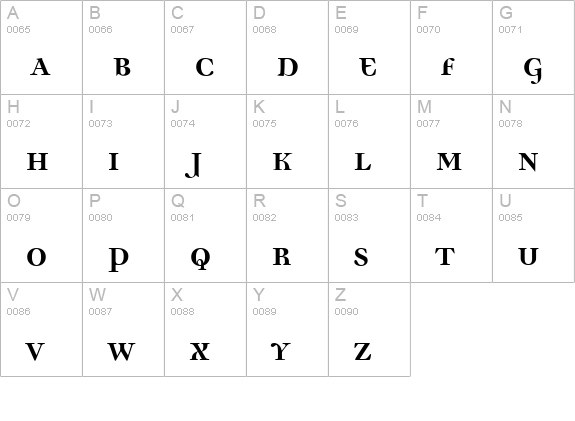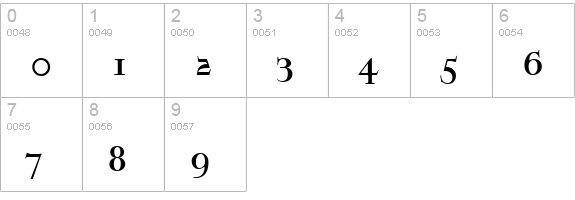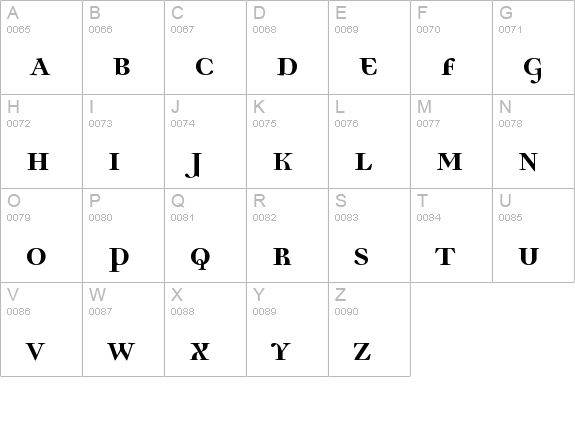
DemocraticaBoldOldstyle Bold is a strong, high-contrast variant in the DemocraticaBoldOldstyle typeface family \xE2\x80\x94 well suited to headlines, attention-grabbing titles, and strong calls-to-action.
DemocraticaBoldOldstyle Bold font is a striking and versatile typeface that exudes confidence and modernity. With its bold strokes and classic design elements, this font is perfect for making a statement in any project. Whether you're creating a headline for a magazine, designing a logo for a business, or crafting a poster for an event, DemocraticaBoldOldstyle Bold font will make your text stand out with its bold and authoritative presence. This font is a timeless choice that combines traditional elegance with contemporary flair, making it suitable for a wide range of design applications. Its strong and bold letterforms command attention and convey a sense of strength and professionalism. Whether you're using it for print or digital media, DemocraticaBoldOldstyle Bold font will make a bold statement and leave a lasting impression on your audience. Best of all, DemocraticaBoldOldstyle Bold font is available for free download at FontsMarket.com. This means that you can easily access this high-quality font without any cost, making it a valuable addition to your font library. Don't miss out on the opportunity to enhance your designs with the bold and captivating DemocraticaBoldOldstyle Bold font today!